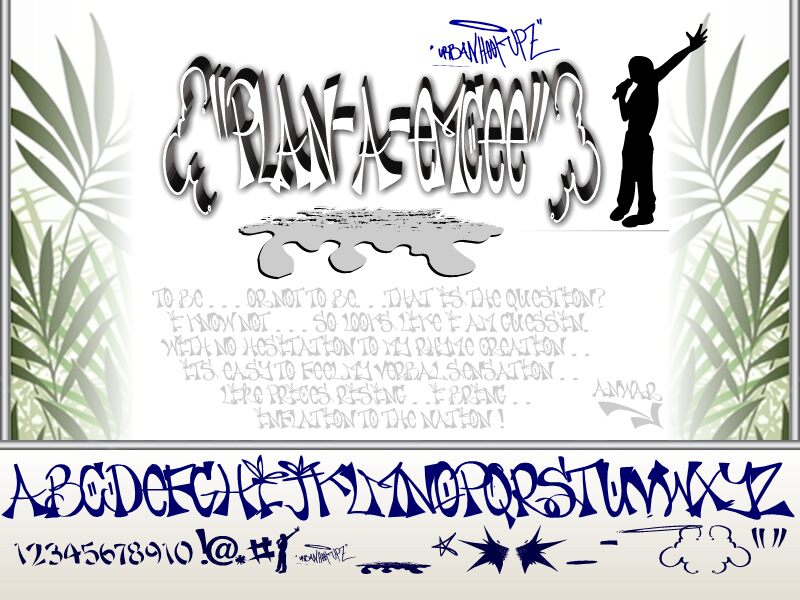
Plan-A-Emcee is a captivating graffiti-inspired font that exudes urban energy and raw expression. Its bold, angular strokes and distinctive letterforms evoke the vibrant street art culture, making it an ideal choice for a wide range of design projects. From album covers and event posters to product branding and packaging, this font commands attention and lends an authentic, edgy aesthetic to any visual narrative.
Its versatility shines through, allowing designers to seamlessly integrate this typographic statement piece into their work, elevating the overall impact and resonating with audiences seeking a unique, visually striking experience.
PLAN-A-EMCEE - URBAN HOOK-UPZ
Urban Hook-Upz
Anwar M. Ibrahim